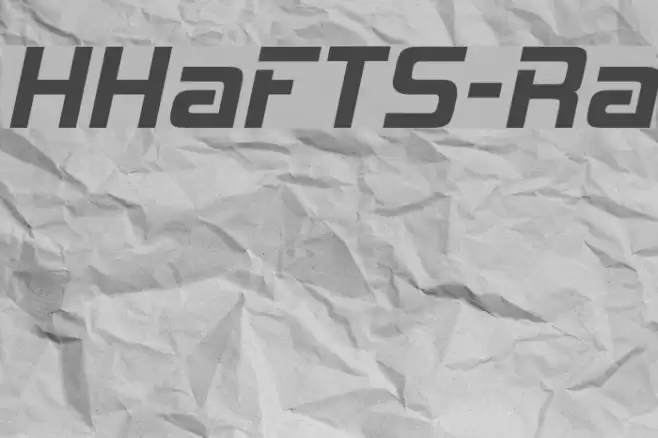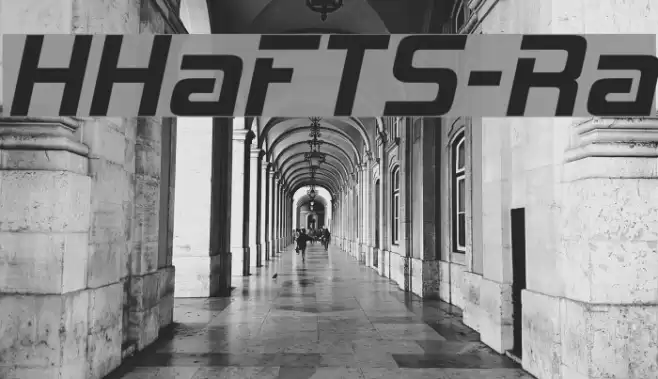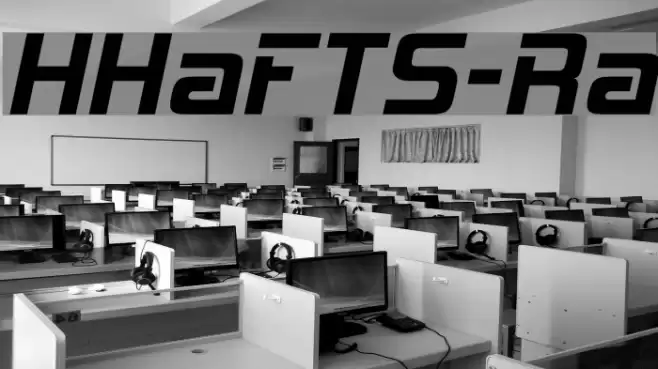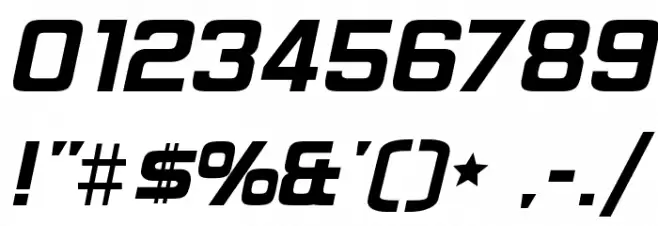
HemiHeadFourTwentySix-Regular Font
HemiHeadFourTwentySix-Regular Description
This font exudes a bold, modern aesthetic with a strong, angular design that suggests speed and efficiency. The characters are slightly slanted, giving a sense of motion and dynamism. The uppercase letters are particularly striking, with sharp edges and a futuristic feel. The lowercase letters maintain the same angular style, ensuring consistency across the typeface. Numbers and special characters are designed with the same attention to detail, making them stand out while remaining cohesive with the overall style. The font's design is ideal for projects that require a modern and energetic look.
- Proposed Projects: Ideal for automotive branding, sports team logos, tech company advertisements, and dynamic website headers.